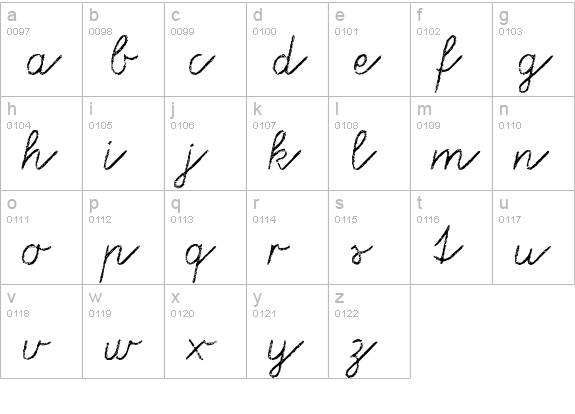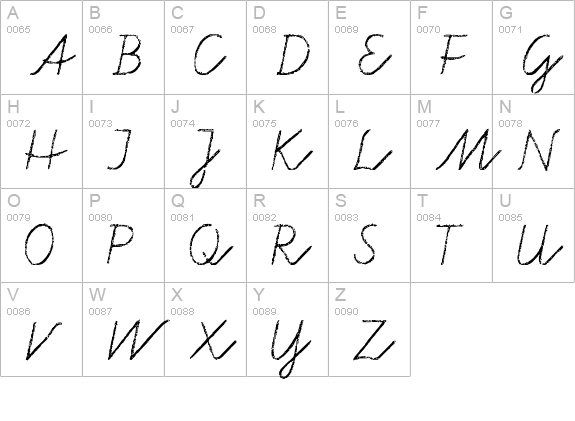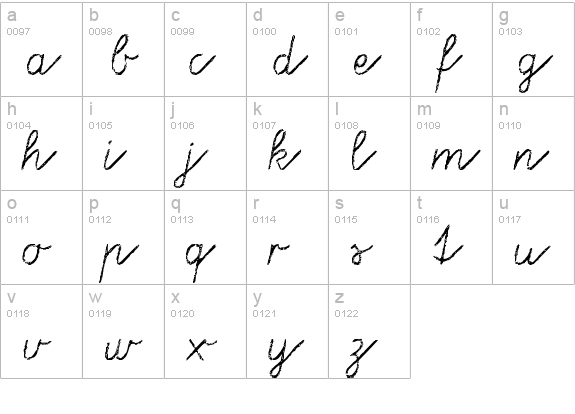
Tafelschrift Font Details
Tafelschrift font is a beautifully crafted typeface that brings a touch of elegance and sophistication to any design. This font is inspired by the timeless beauty of hand-lettered chalkboard signs, making it perfect for projects that require a vintage or nostalgic feel. With its delicate curves and clean lines, Tafelschrift font is both versatile and eye-catching. Whether you're designing a menu, a logo, or a wedding invitation, this font will add a touch of charm and personality to your work. One of the best things about Tafelschrift font is that it is freely available to download at FontsMarket.com. This means that you can easily access and use this font for personal or commercial projects without any restrictions. So whether you're a professional designer or a hobbyist, you can enjoy the benefits of this beautiful font without any cost. Tafelschrift font comes in a range of weights and styles, allowing you to experiment and find the perfect look for your project. From a bold and impactful headline to a subtle and elegant body text, this font has got you covered. In addition to its aesthetic appeal, Tafelschrift font also offers excellent legibility, ensuring that your message is conveyed clearly and effectively. Its clean and crisp letterforms make it easy to read, even at smaller sizes. So if you're looking for a versatile and visually appealing font that is both timeless and free, look no further than Tafelschrift font. Download it today from FontsMarket.com and bring a touch of elegance to your designs.